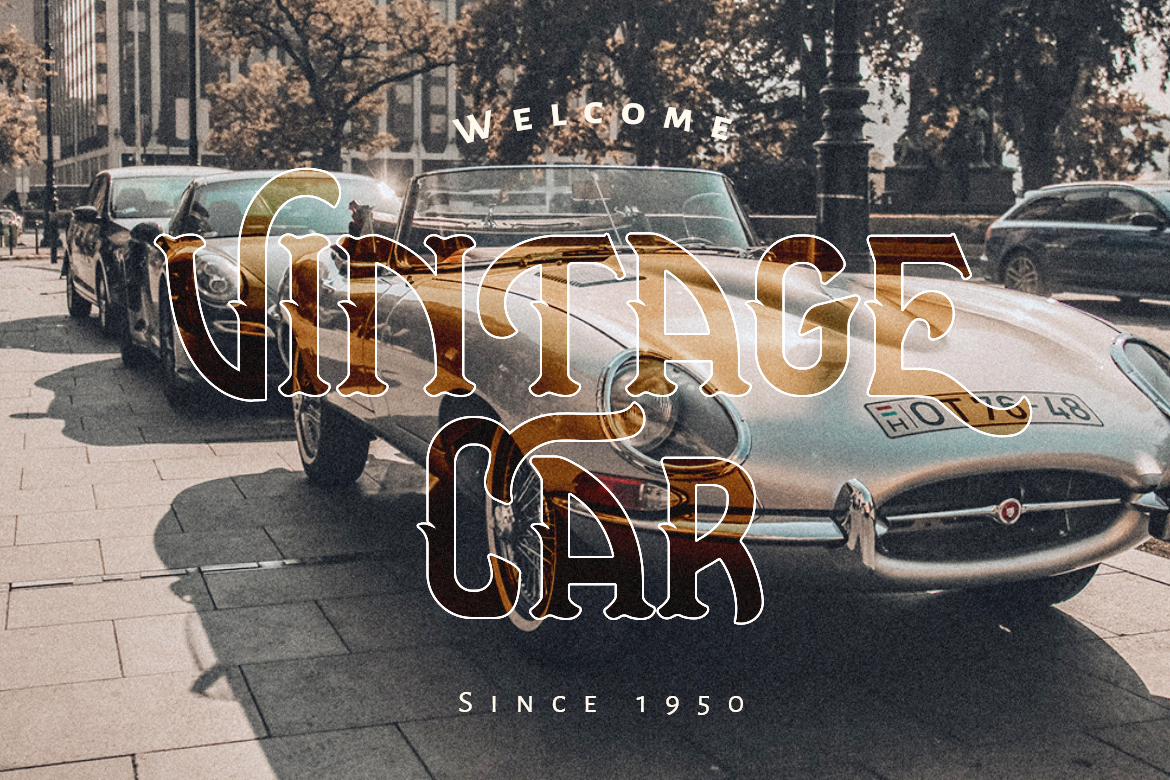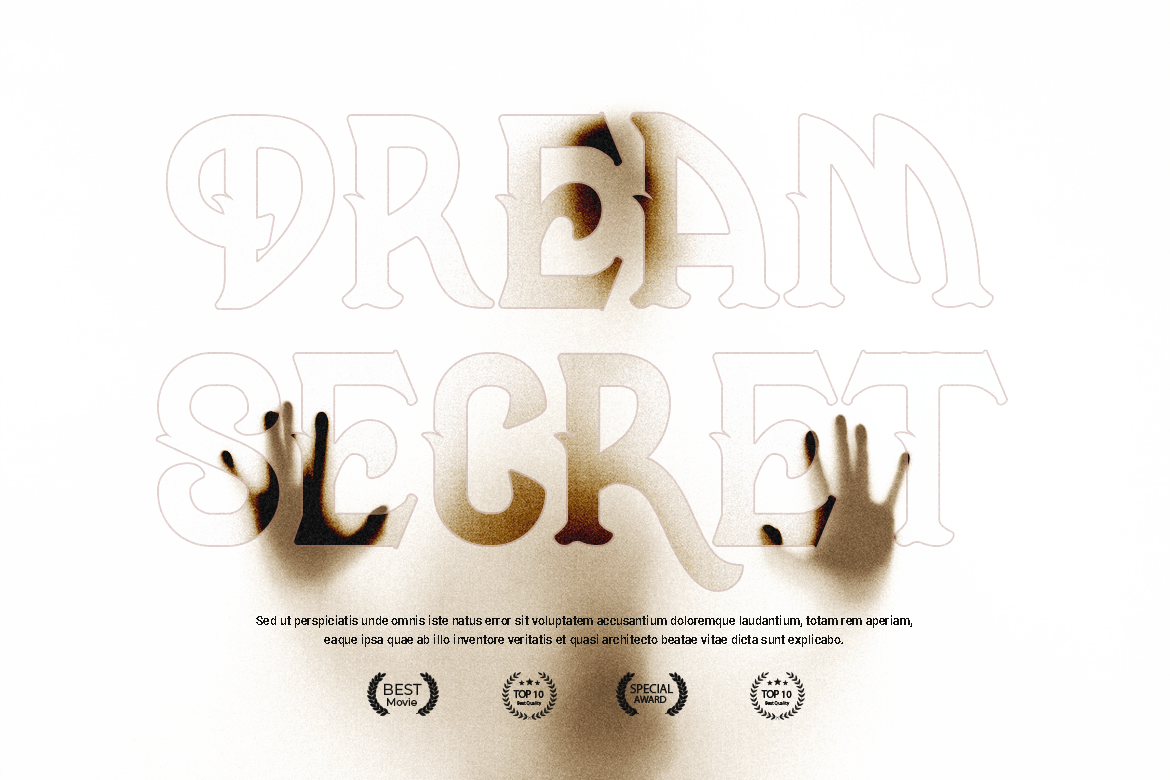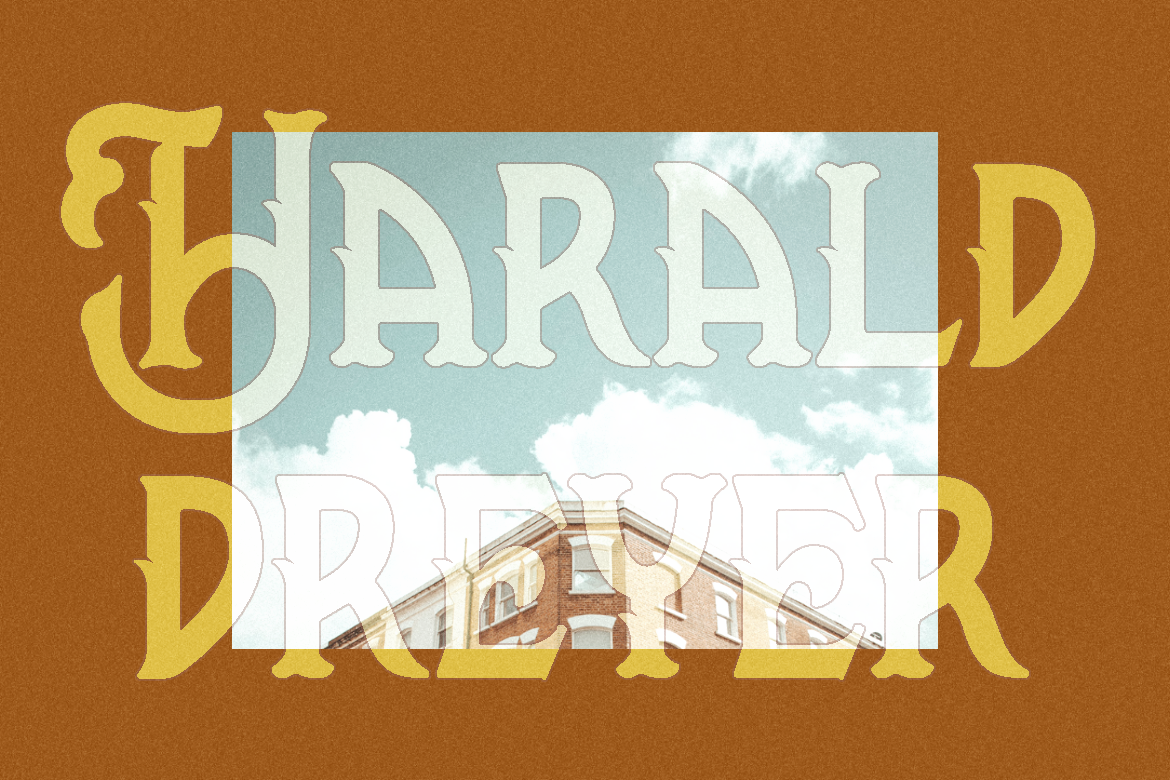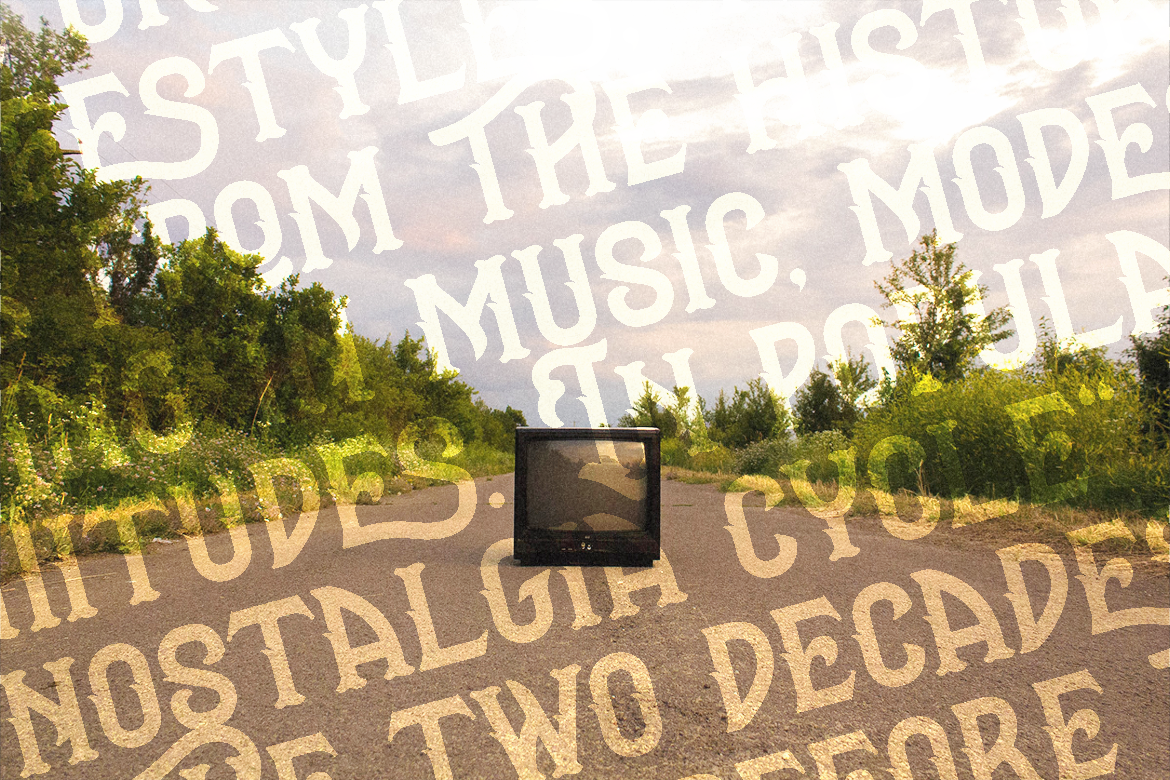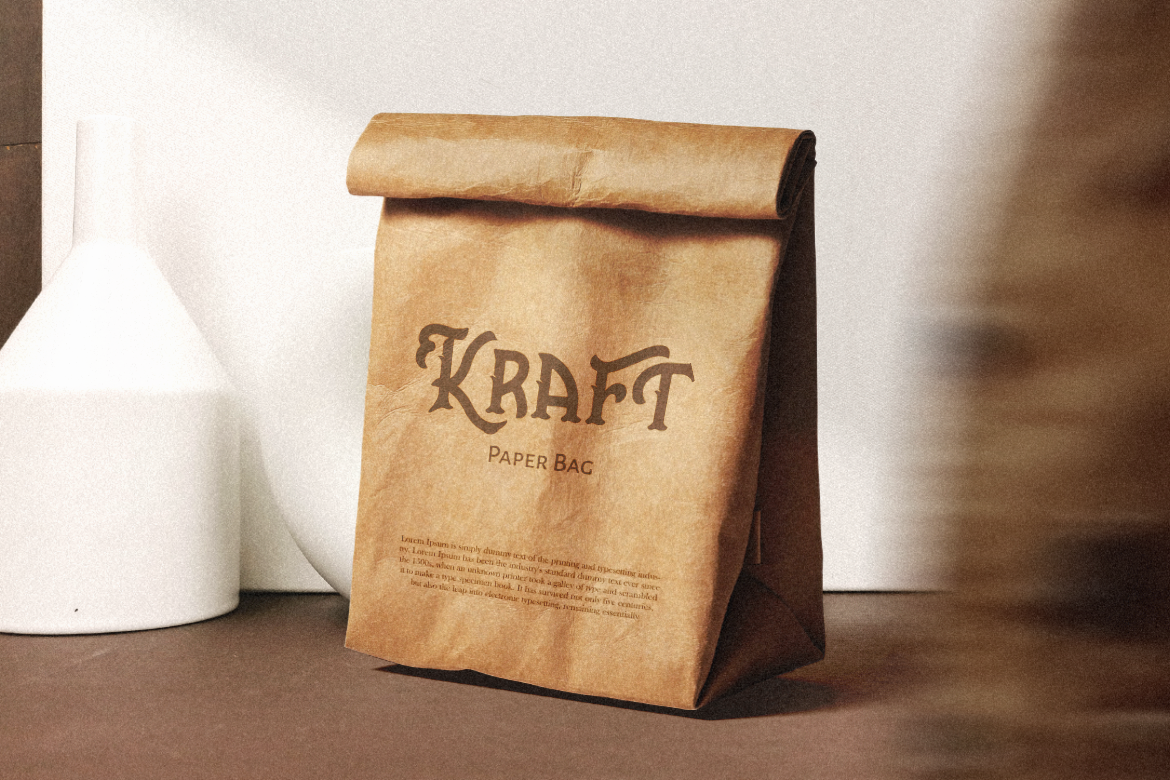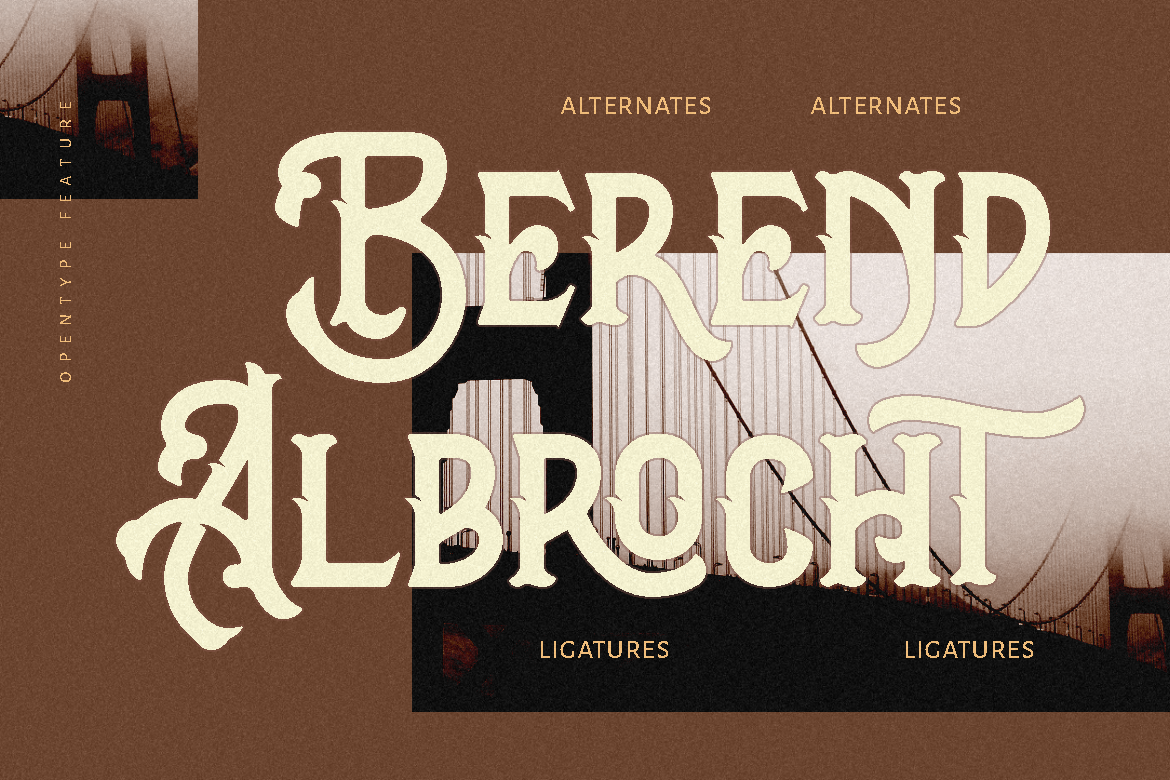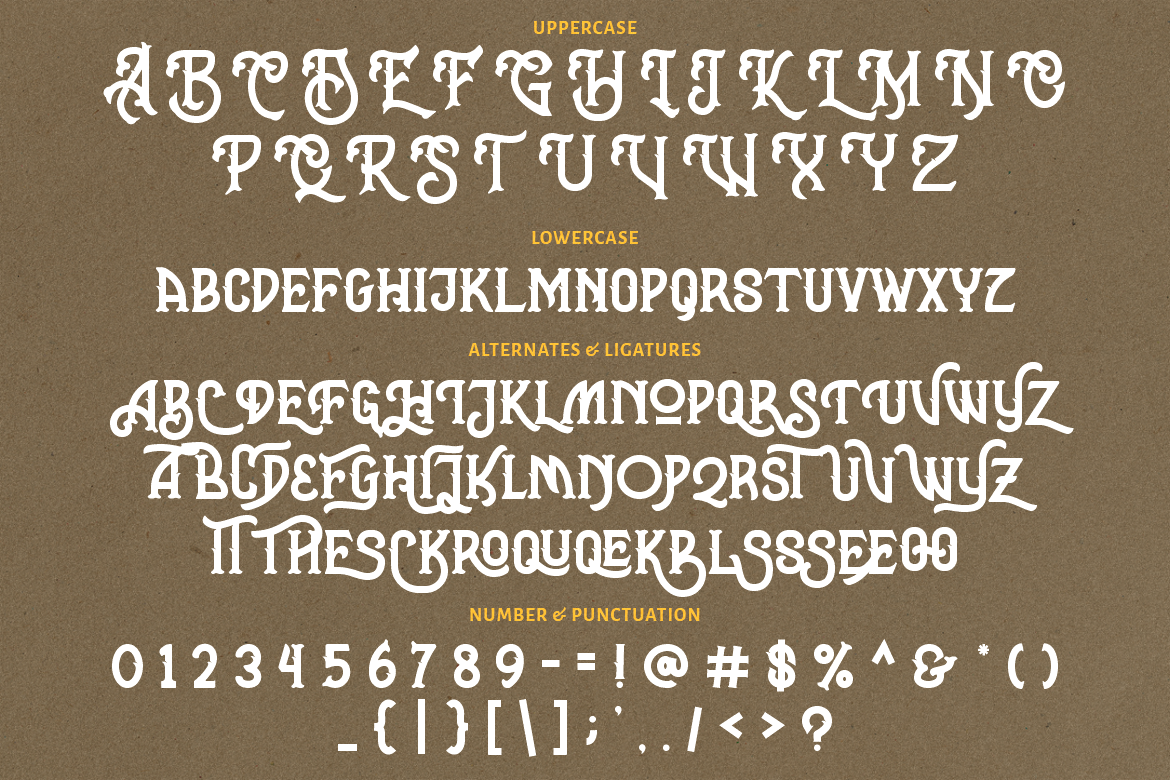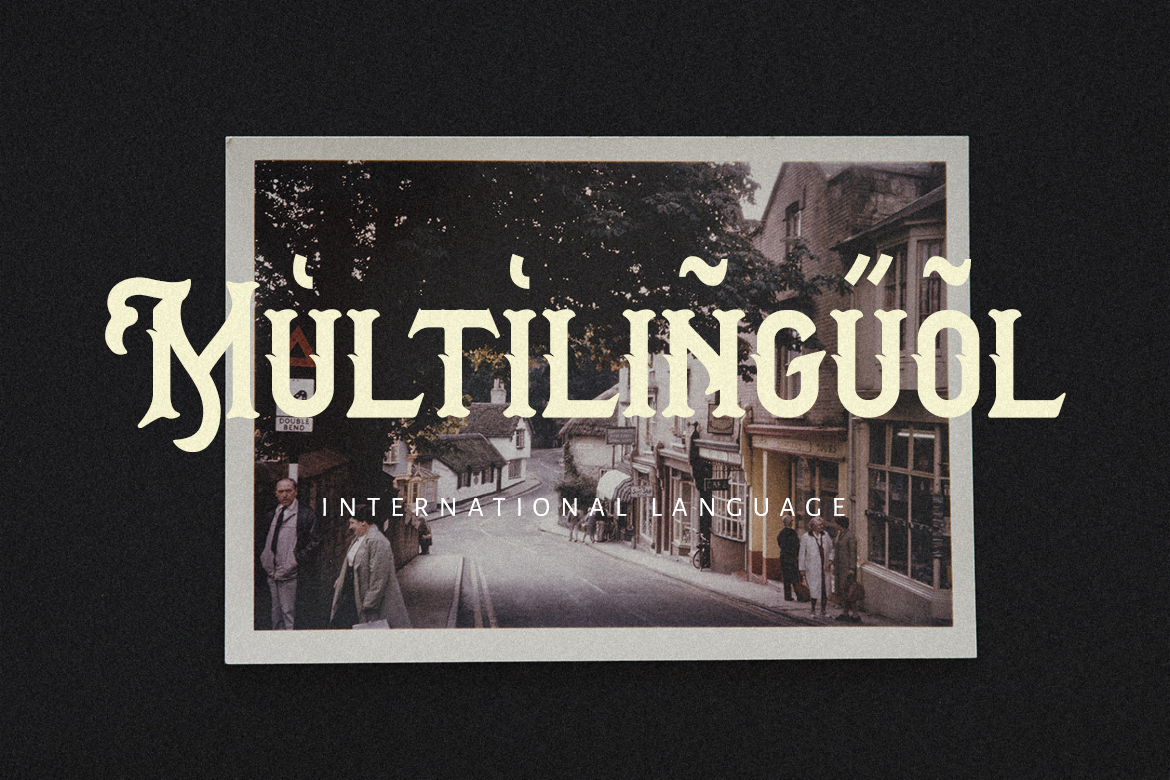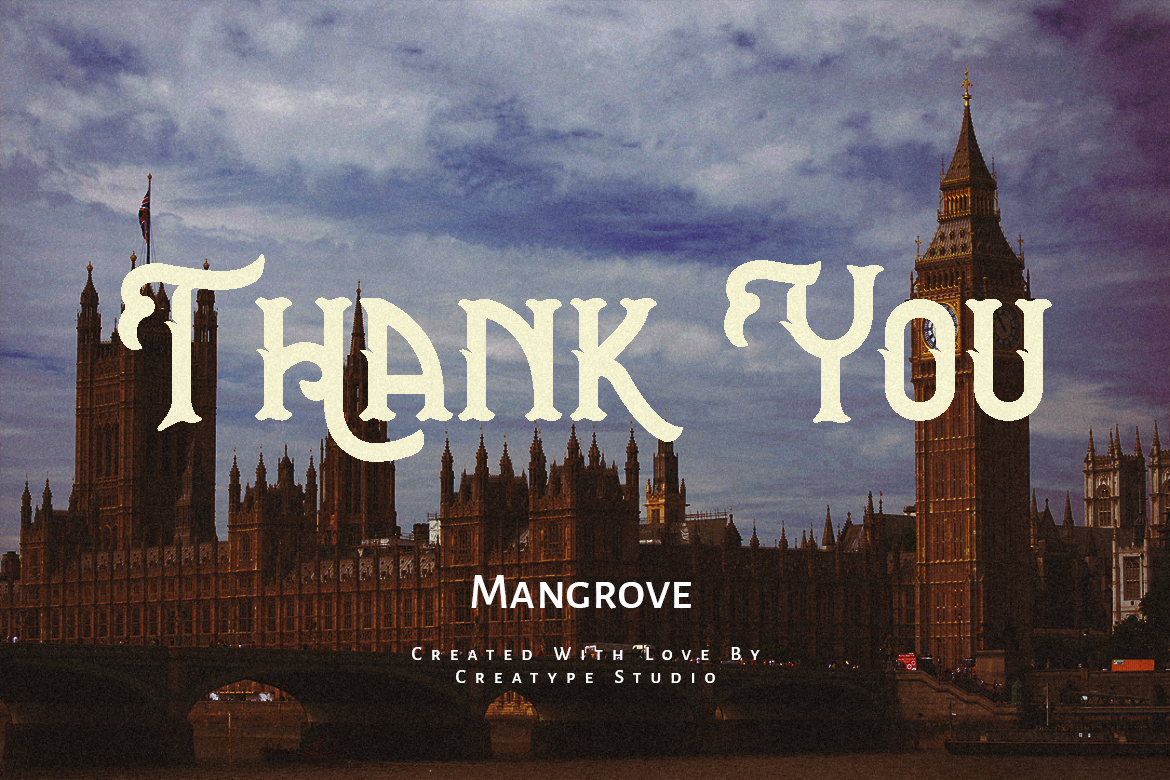
Mangrove Sans Retro
A vintage, masculine and mysterious typeface, that’s what Mangrove is. With those three characters, Mangrove will make your project has bold and strong looks.
Mangrove is perfect for branding projects, logo, wedding designs, social media posts, advertisements, product packaging, product designs, label, photography, watermark, invitation, stationery and any projects that need handwriting taste.